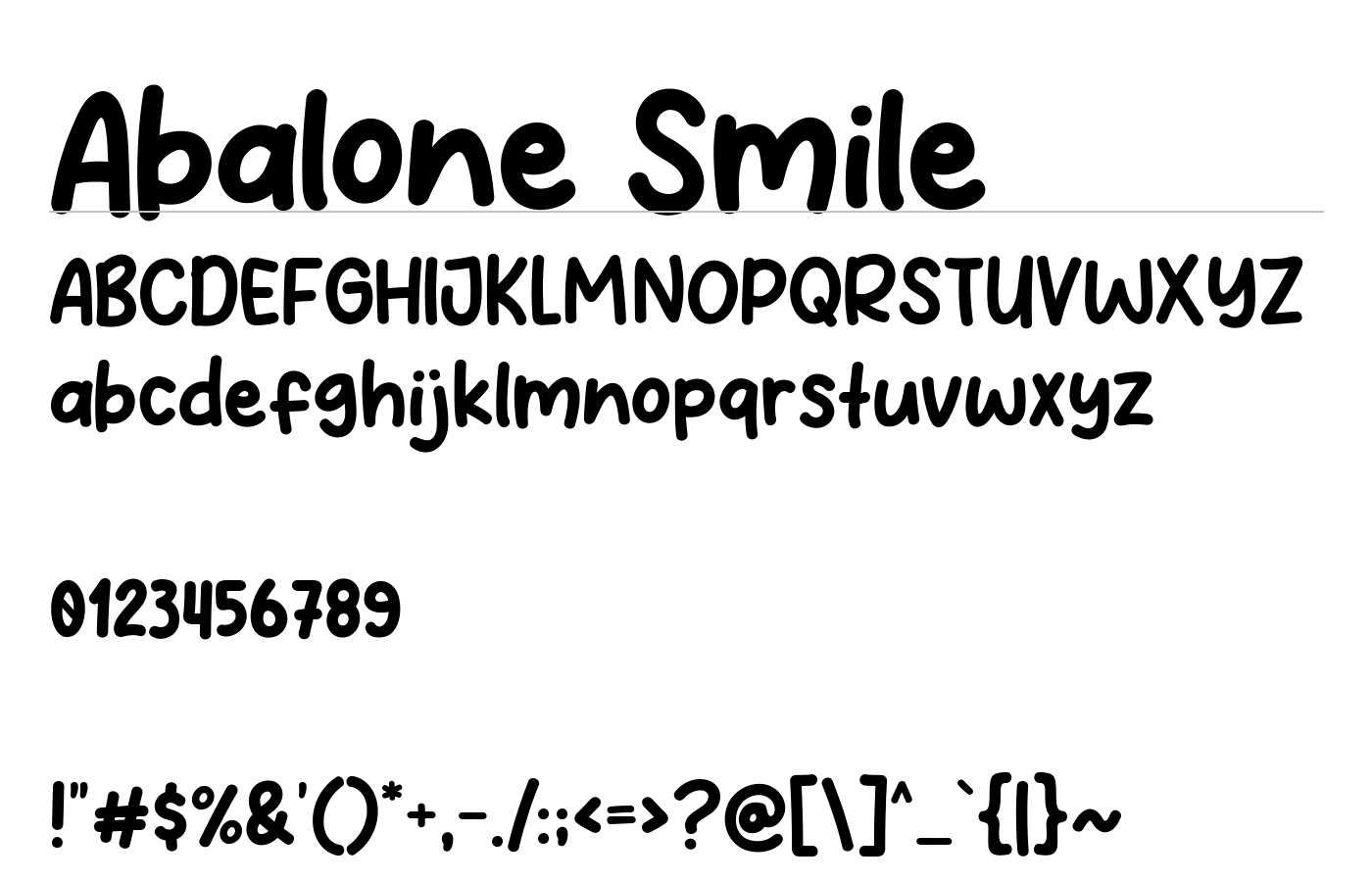
Abalone Smile is a playful, casual handwritten font with a friendly and rounded appearance. Its bold weight and slightly condensed letterforms, featuring consistent stroke thickness and open shapes, make it perfect for creating approachable, informal designs. Ideal for children's books, fun branding, and casual headlines, it brings a warm, welcoming personality to any project.
Abalone Smile Font
About Abalone Smile Font
| Font family | Abalone Smile Font |
| Designer | Khurasan & Jalembe |